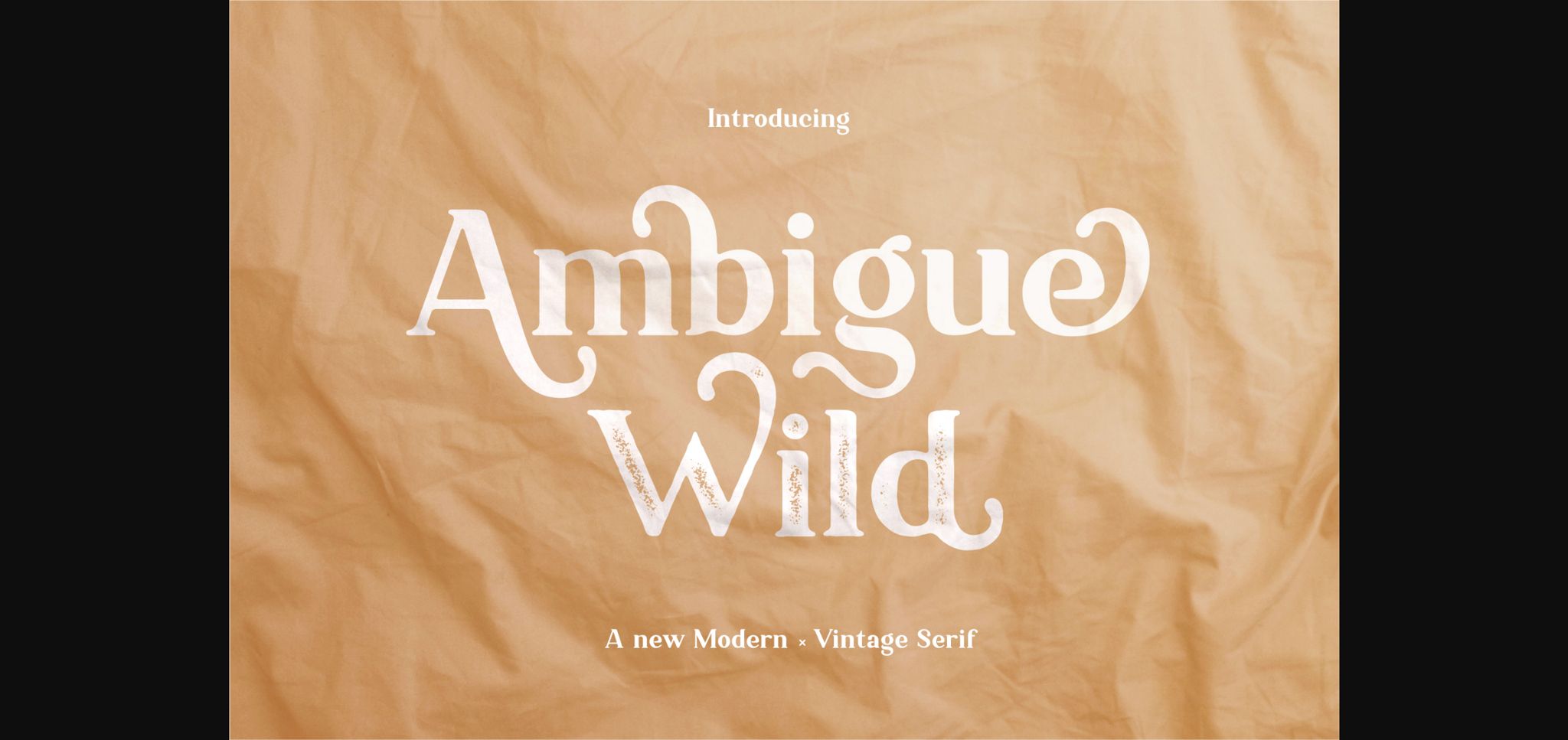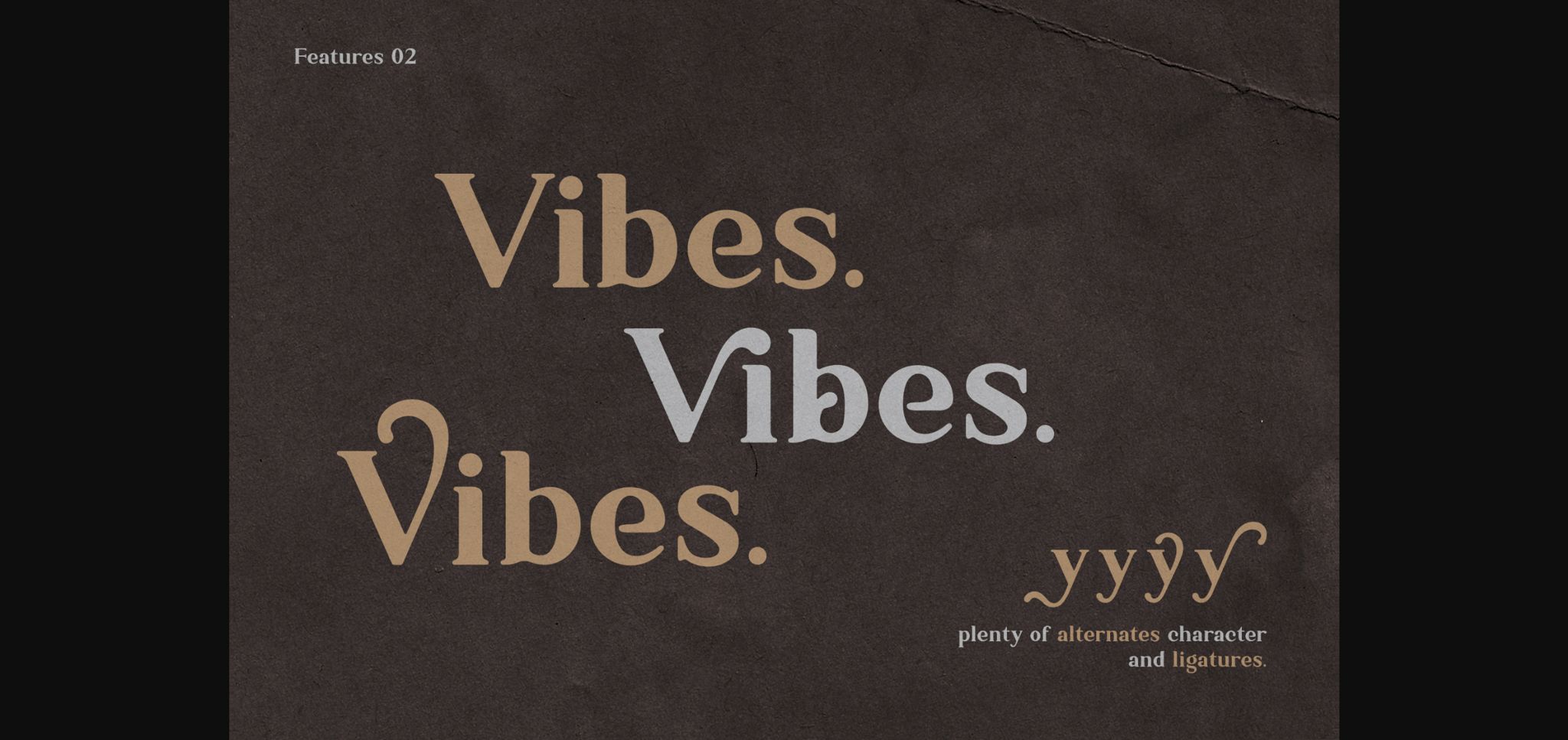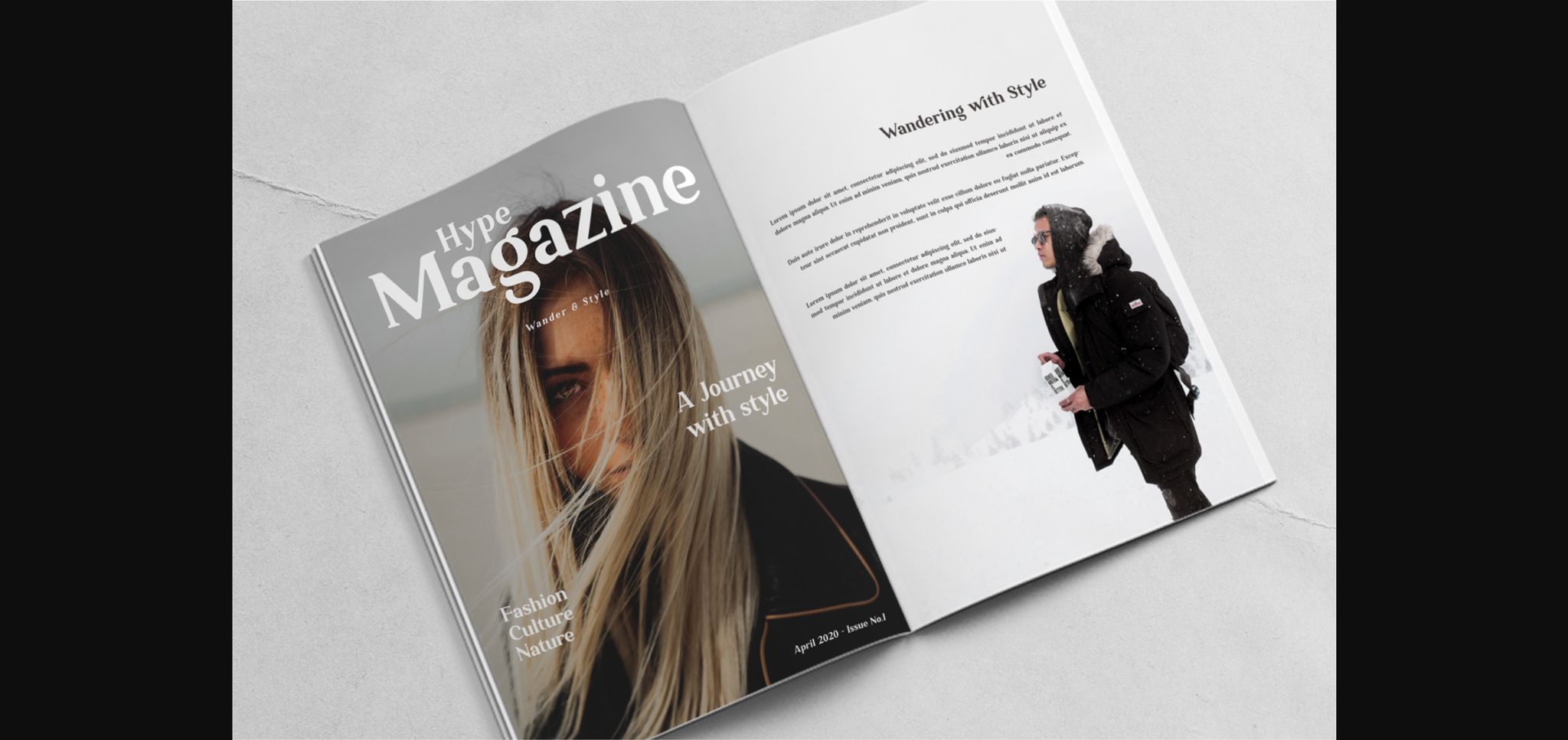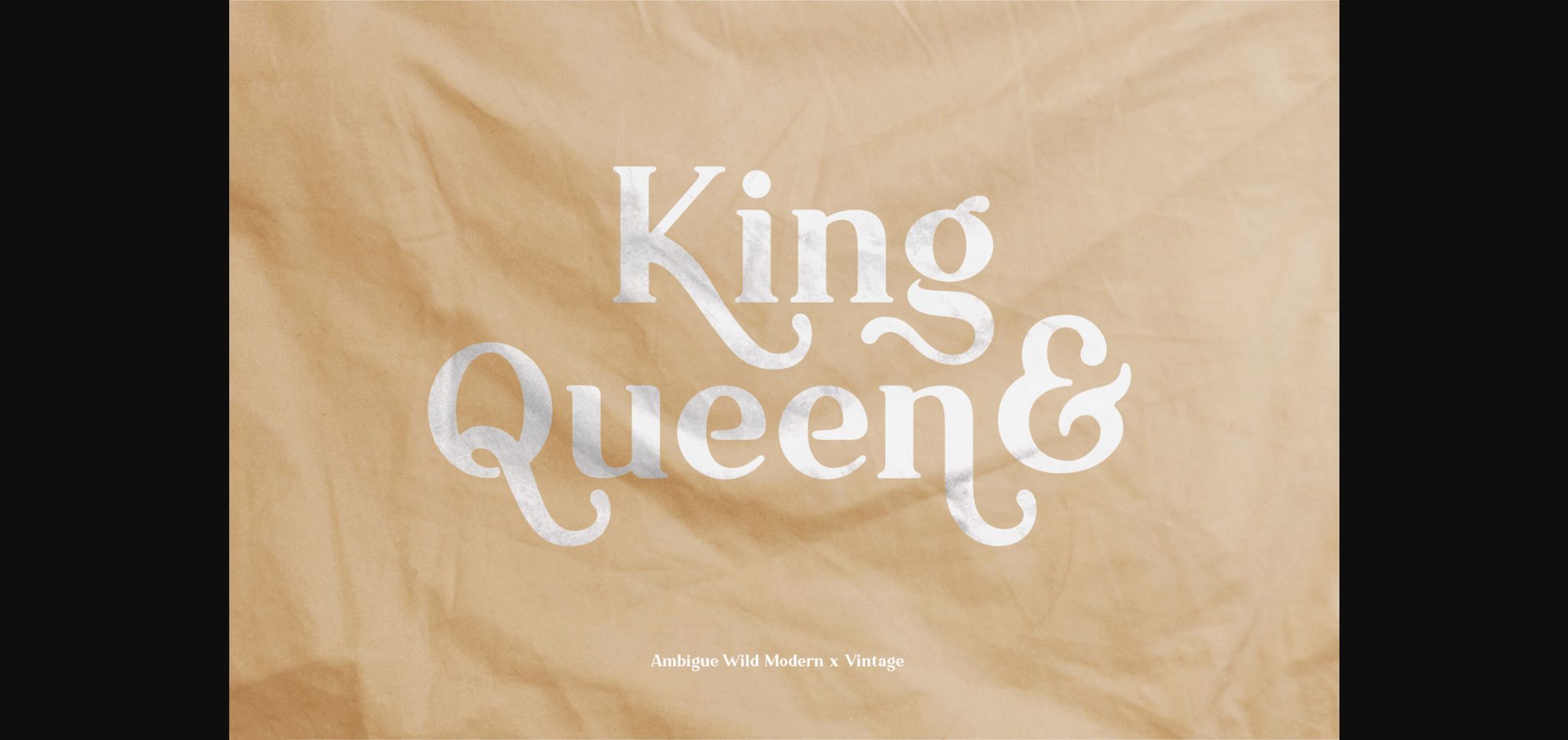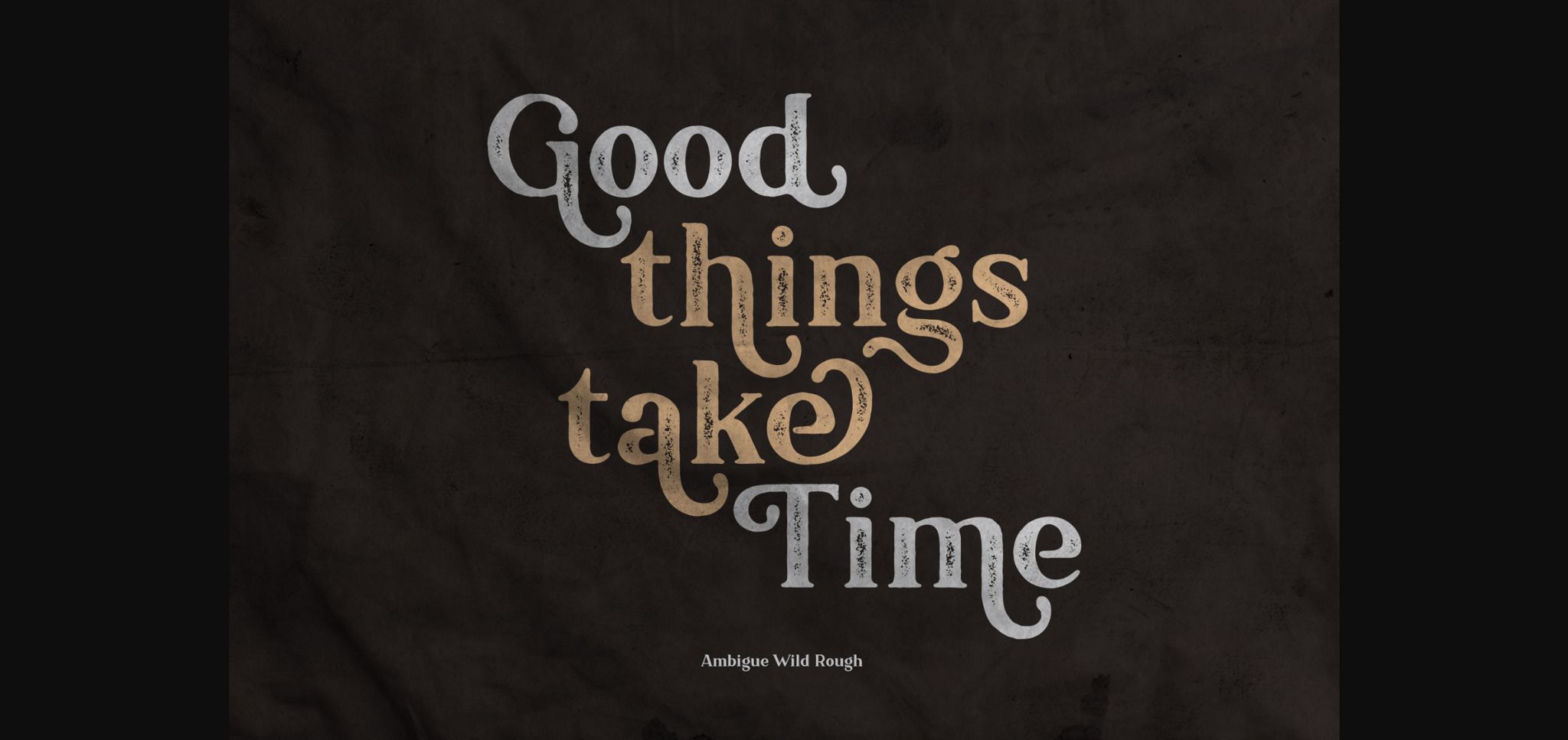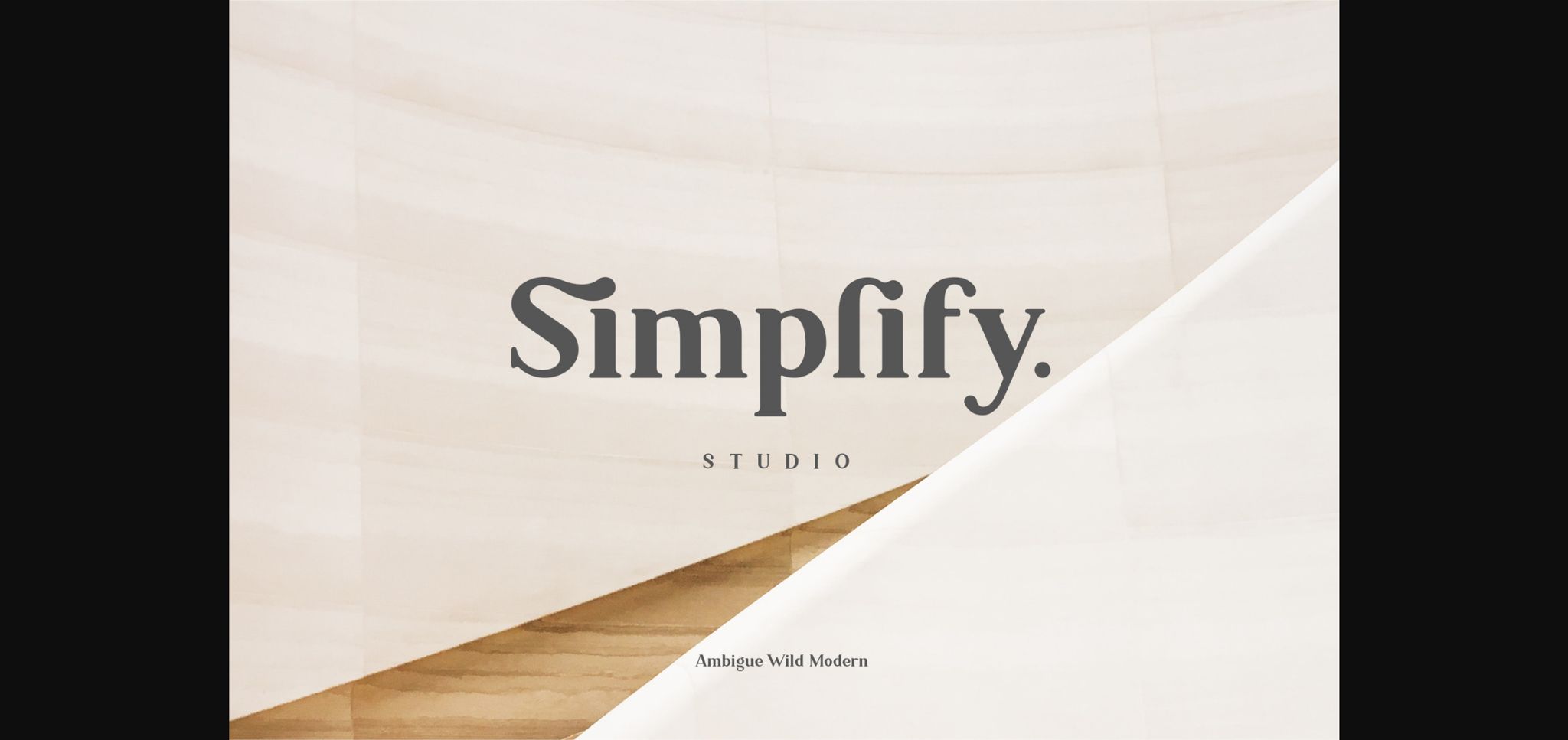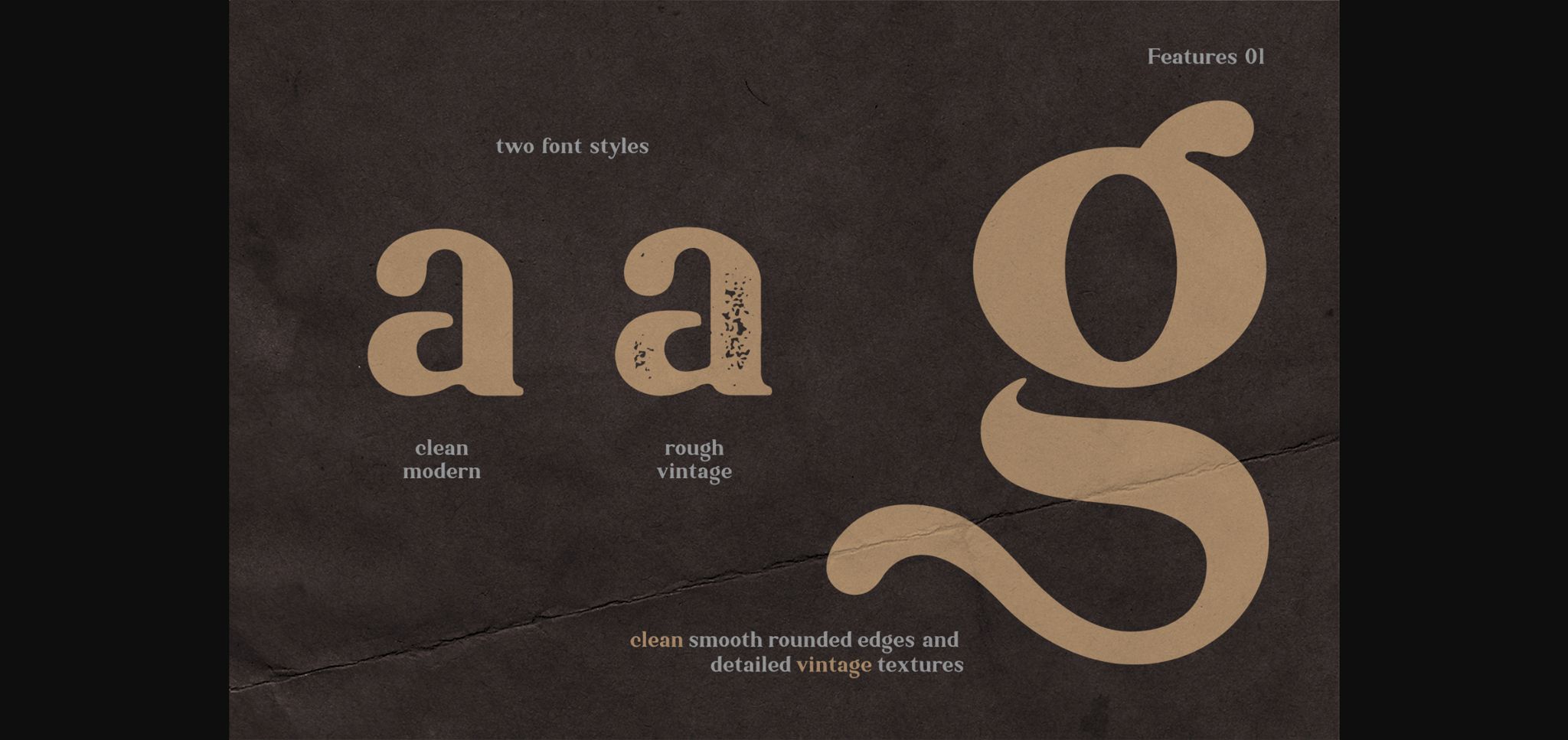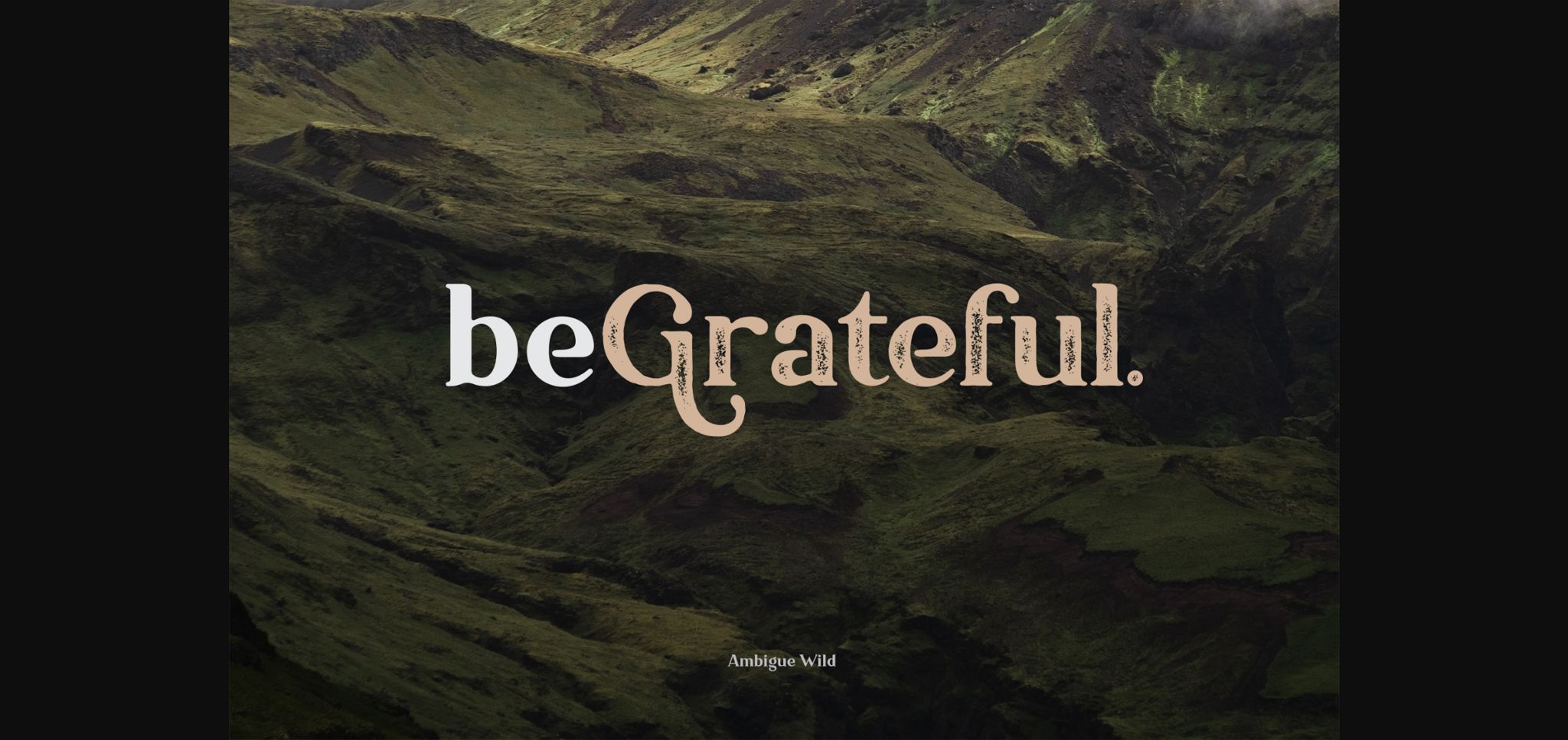
About Ambigue Wild Font
Ambigue Wild is a clean modern serif font. It features smooth rounded edges in each character and it brings a rough and inked style.
It’s perfect for creating outstanding projects – be it logo, branding, product packaging, magazine covers and much more!